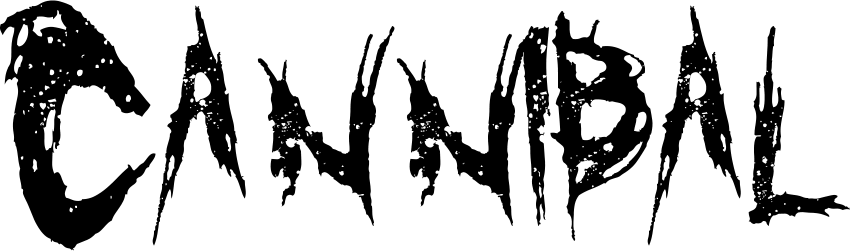
Cannibal Font
Need a font to create a creepy typography?! Been searching for something spooky? You’re at the right place as Cannibal is what will give your text a scary feel with its horrific characters that are messy and spiky! This horror font can be difficult to read.
The letterforms you can use in this grunge punk font are only capitalized alphabets as there are no lowercase letters, numbers, or punctuations. Books cover, packaging, products, Halloween clothing, and games are suitable and useful places for Cannibal.